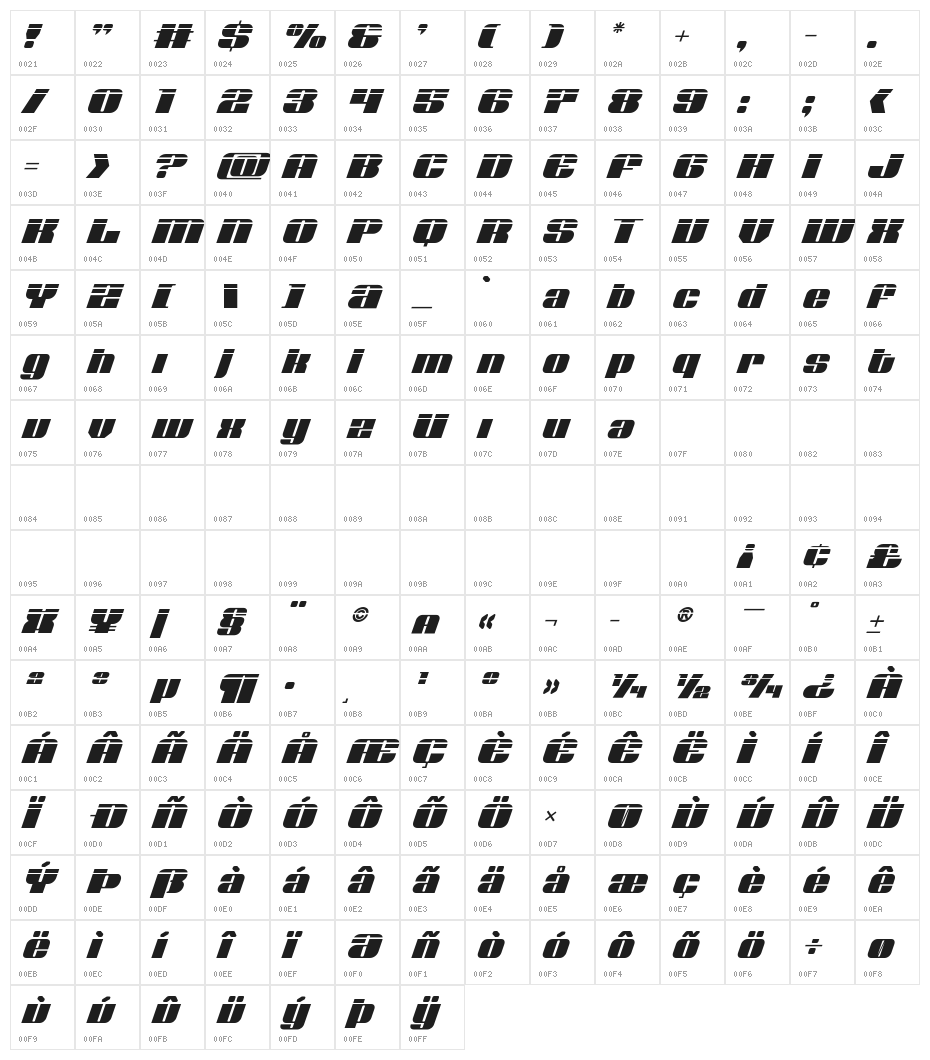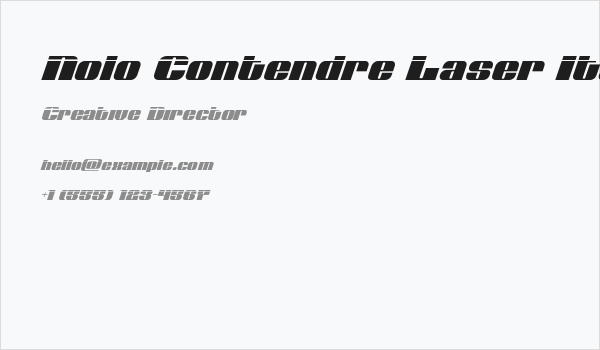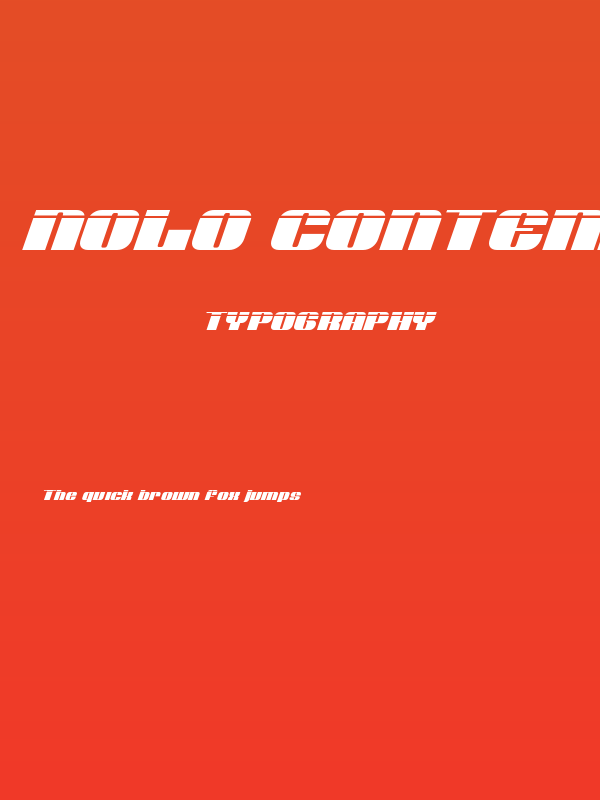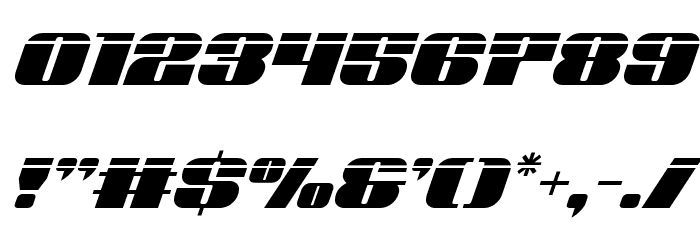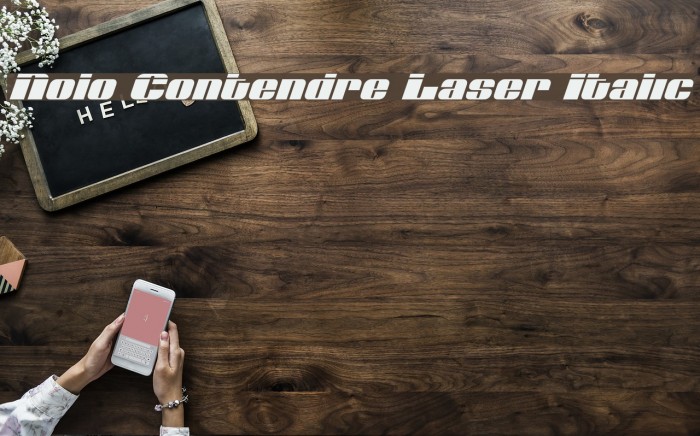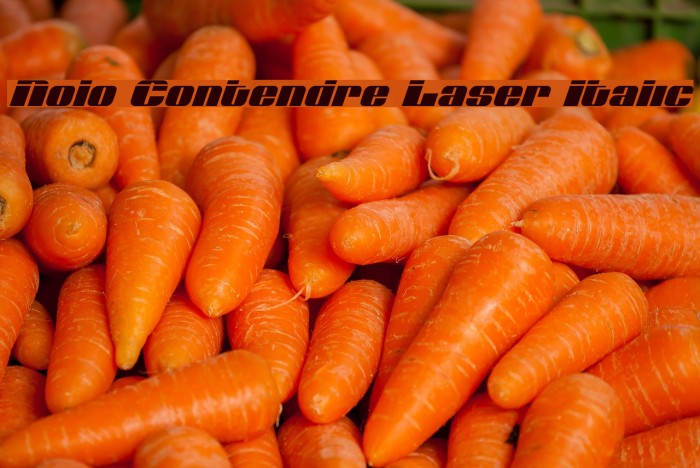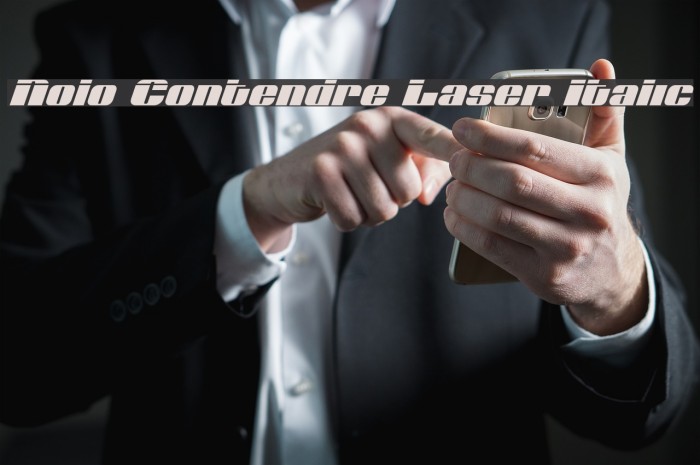
Nolo Contendre Laser Italic Font
Nolo Contendre Laser Italic Description
This font features a bold, italicized style with a futuristic and dynamic appearance. The characters are wide and have a strong presence, making them ideal for attention-grabbing designs. The strokes are thick and consistent, creating a uniform look across all characters. The slanted design adds a sense of motion and energy, while the geometric shapes give it a modern edge. The numbers and special characters maintain the same boldness and style, ensuring consistency throughout. This font is well-suited for projects that require a bold statement or a modern, tech-inspired aesthetic.
| Categories | Futuristic |
| Width | Expanded |
| Use Case | Logos, Headlines, Posters |
| Proposed Projects | Ideal for technology branding, sports team logos, futuristic posters, and dynamic advertising campaigns. |